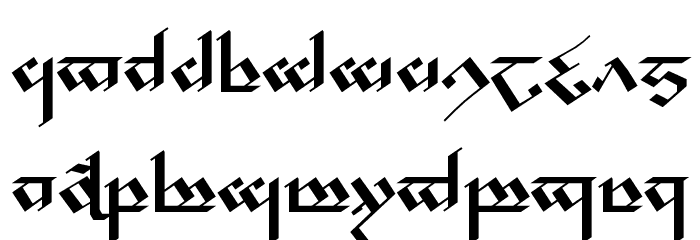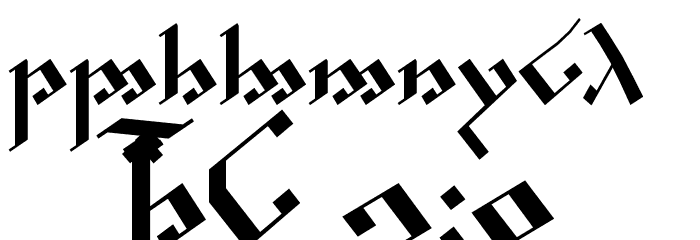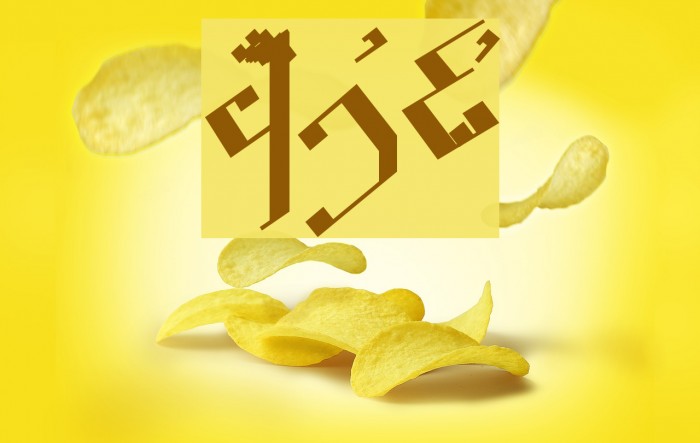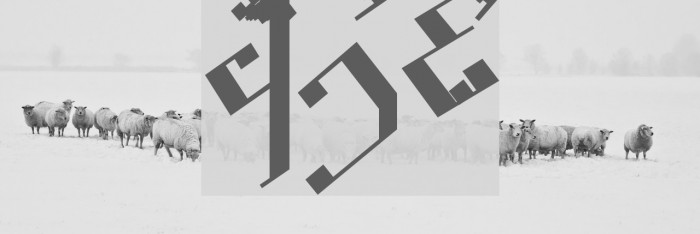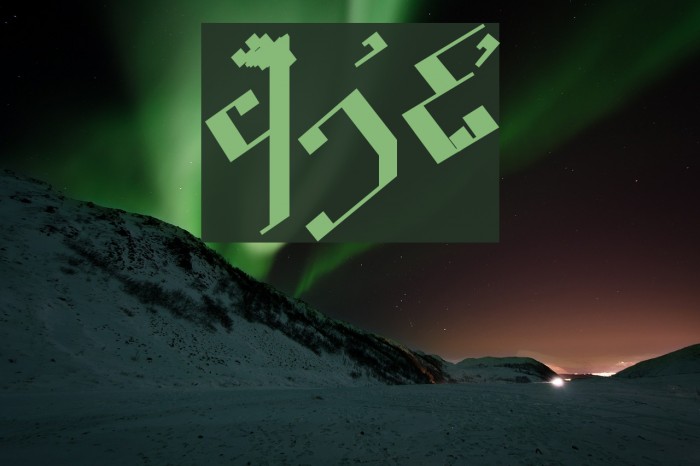
Tengwar Noldor Font
This font is a decorative script inspired by the Tengwar script, known for its intricate and angular design. The characters are highly stylized, with sharp edges and a medieval aesthetic that evokes a sense of fantasy and ancient lore. The uppercase letters are bold and commanding, while the lowercase letters maintain the same angular style, creating a cohesive look. The numerals and special characters are equally ornate, fitting seamlessly into the overall design. This font is perfect for projects that require a touch of fantasy or historical ambiance.
A decorative, fantasy-inspired font with angular, medieval-style characters.
- Proposed Projects: Ideal for fantasy-themed projects, book covers, game design, and decorative posters.
- Use Case: Logos, Headlines, Decorative text